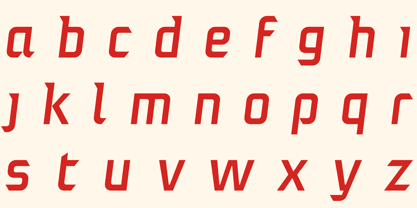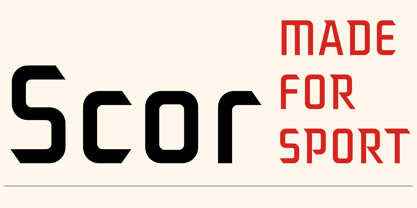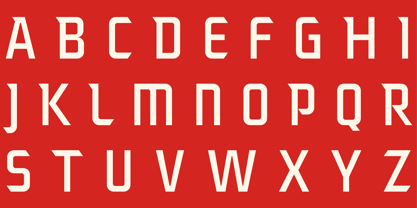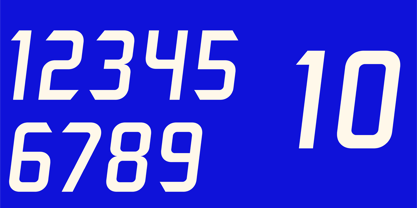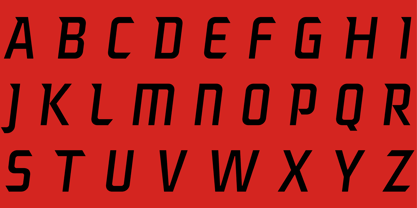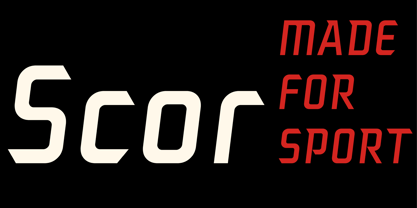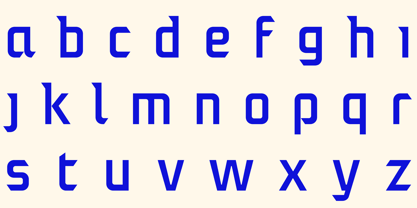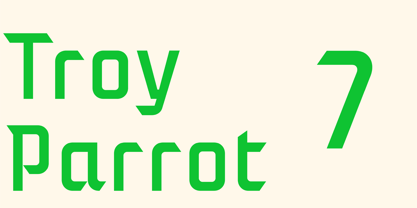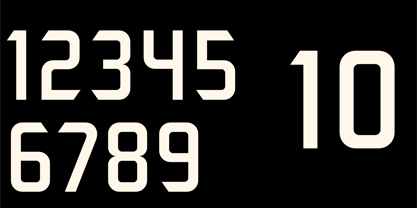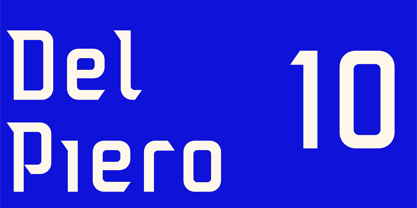
Scor
The Scor Font Family was designed by Dominic Stanley, Jamie Gibney and published by Stanley fonts. Scor contains 2 styles and family package options. More about this family
Check out the new sports font Scor. A mix of Ancient Irish handwriting elements and modern European football fonts. Beautiful in text and on the backs of jerseys! Scor is a sports font designed by Dominic Stanley and Jamie Gibney. We share a love for football and Irish design heritage. We mixed modern sports fonts and ancient Irish manuscript glyphs to make Scor a dynamic typeface with a uniquely Irish accent. We designed Scor to make your jerseys pop and to carry your club’s brand on its shoulders. Scor is available in Regular and Italic styles with 350 characters. It can be used to emphasise your brand on club publications and merchandise.